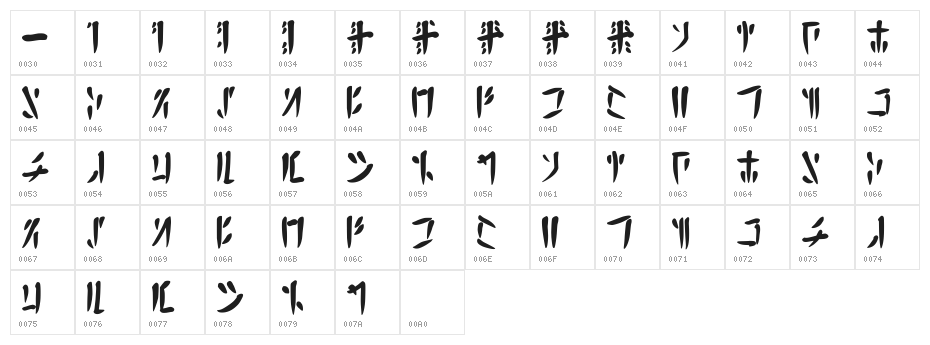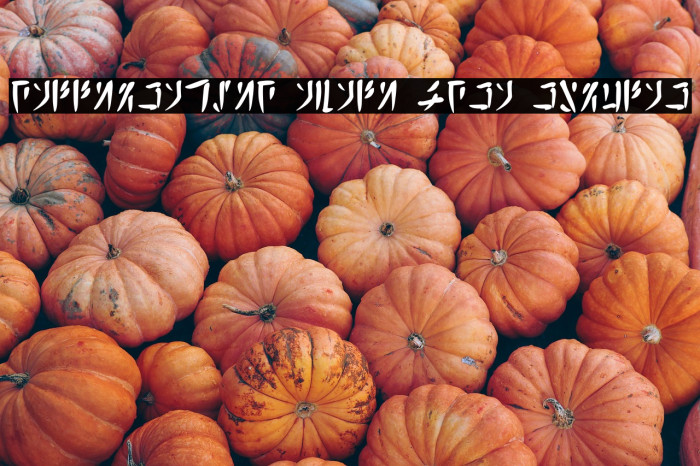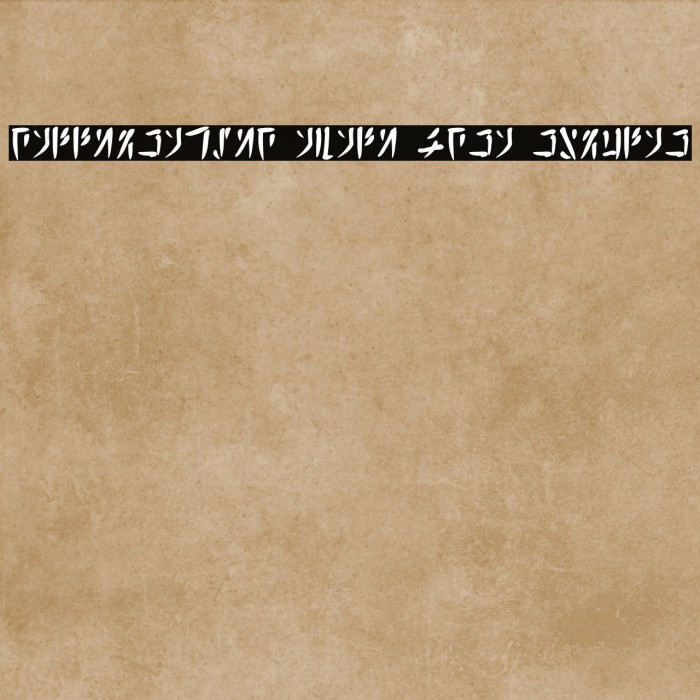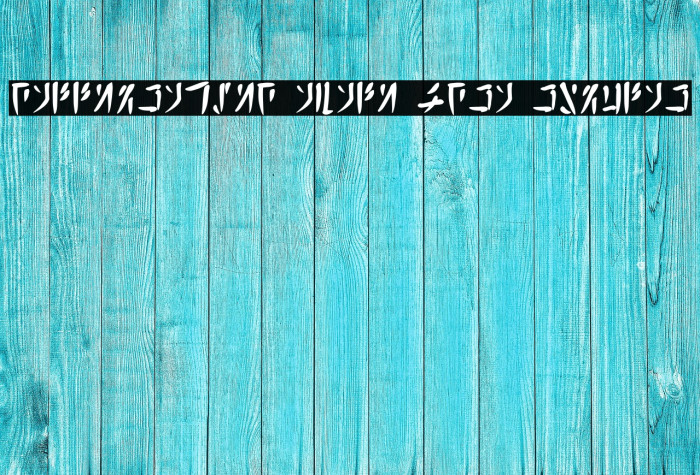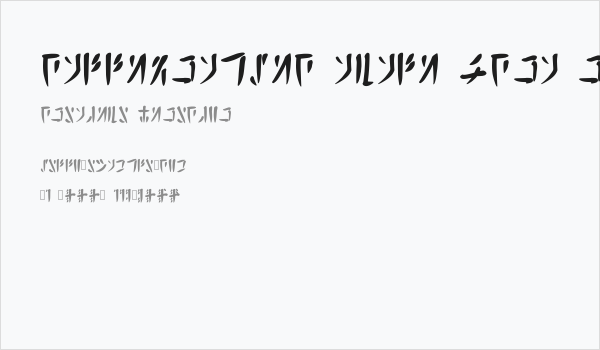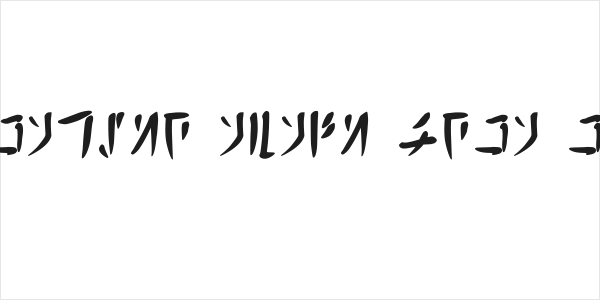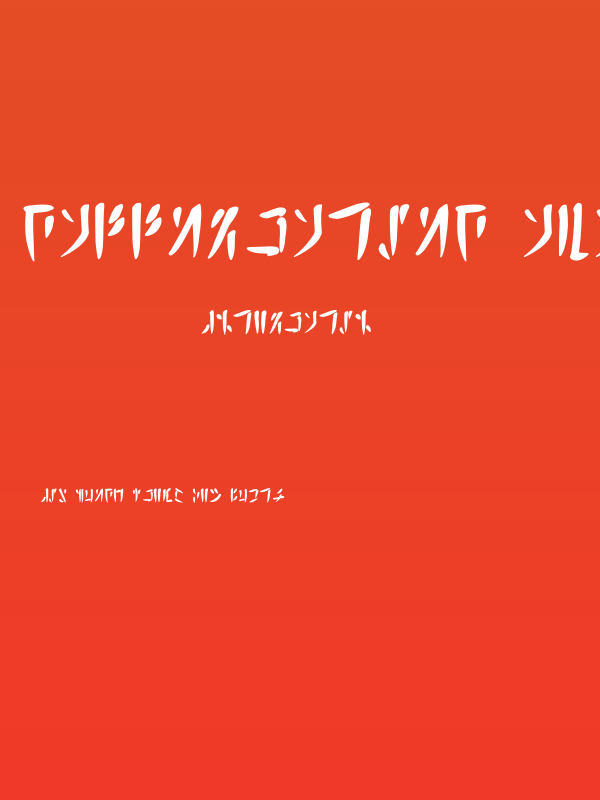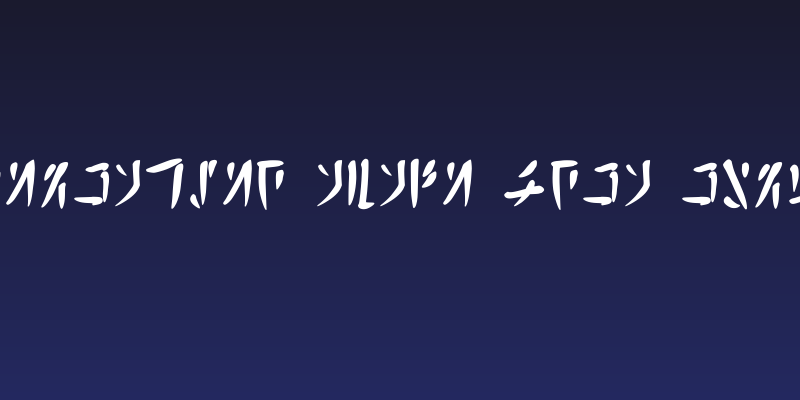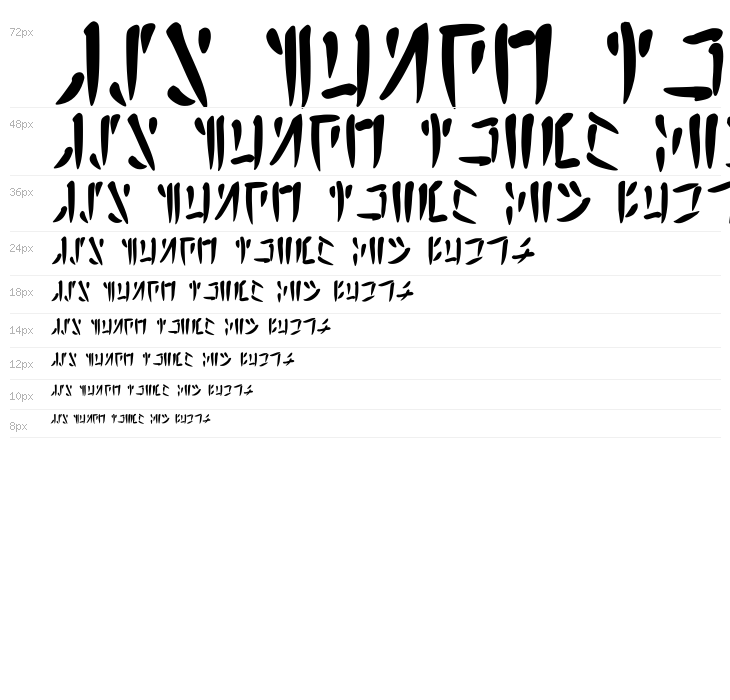
Calligraphic Avali Scra Regular Font
Calligraphic Avali Scra Regular Description
This font features a unique calligraphic style with a modern twist, characterized by its bold and expressive strokes. Each character is crafted with a sense of fluidity and movement, reminiscent of traditional brush calligraphy. The letters have a distinct rhythm and flow, creating a harmonious and artistic appearance. The font's design is both elegant and dynamic, making it suitable for creative and artistic projects. Its boldness ensures readability while maintaining an artistic flair. The characters are well-balanced, with a consistent stroke width that adds to its cohesive look.
| Overall Style | Modern, Artistic |
| Proposed Projects | Ideal for artistic projects, branding, invitations, and decorative purposes. |